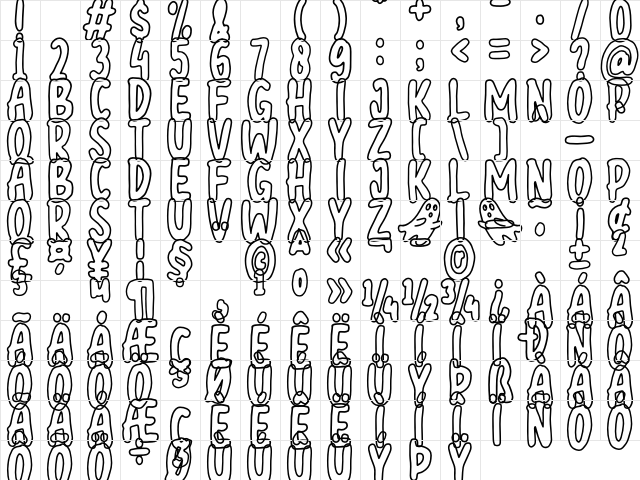
halloween outline Regular Font Preview
halloween outline Regular
halloween outline Regular Font Details
Design Context for halloween outline Typeface
halloween outline is built around its visual character rather than neutral utility — its distinctive forms are designed to make an impression at display sizes.
Font Pairing: Pair with a clean neutral sans-serif for body copy to let halloween outline's character lead without overwhelming the composition.
Pro Tip: Treat halloween outline as the centrepiece of your typographic hierarchy. One strong heading set in a decorative face can carry an entire layout.